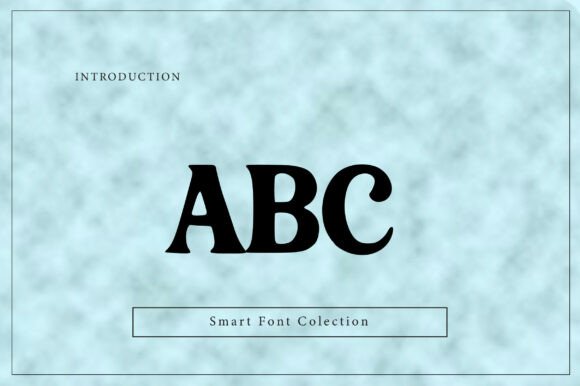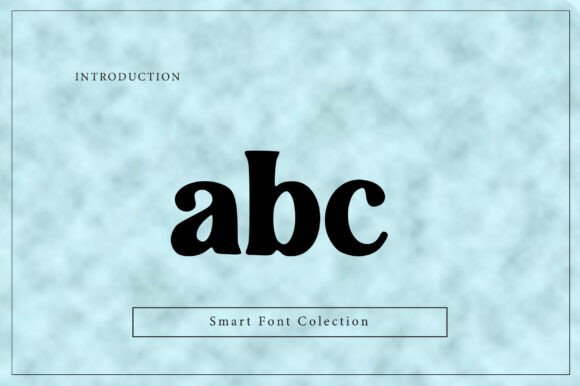
Step Back in Time with Bold Retro Font
I’ll never forget the design project that led me to discover the Bold Retro font. I was working on a branding campaign for a boutique coffee shop, and my client specifically requested a vintage vibe. I spent hours scouring font libraries, but nothing seemed quite right – until I stumbled upon Bold Retro. Its thick, confident strokes and subtle flared terminals instantly transported me to the golden era of design. I knew right then and there that I had found the perfect fit.
A Designer’s Dream: Bold Retro Font
The Bold Retro font is a typeface that perfectly captures the soulful essence of vintage aesthetics while maintaining a sharp, modern edge. It’s built for impact, making it remarkably versatile for a wide range of design projects. Whether you’re creating bold logotypes, nostalgic packaging, or high-contrast editorial layouts, Bold Retro injects a sense of nostalgia and reliability into your work.
Here’s what I love about Bold Retro:
- ✨ Instant vintage charm: The font’s classic design elements evoke a sense of nostalgia and timelessness.
- ✅ High-impact legibility: The thick strokes and confident letterforms make it perfect for headlines and titles.
- 💡 Versatility: Use it for logotypes, packaging, editorial layouts, or any project that needs a bold statement.
And, of course, no font is perfect. A few quirks to keep in mind:
- 🤔 Limited use for body text: Due to its bold nature, Bold Retro is best suited for headlines and titles rather than lengthy paragraphs.
- ⚠️ Glyph limitations: While the font has a range of OpenType features, some users may find the character set limited for very specific design needs.
The Story Behind Bold Retro Font
Legend has it that Bold Retro was inspired by the iconic signage of 1950s America. Its designer, a fan of classic cinema and mid-century advertising, sought to capture the essence of a bygone era in a modern typeface. The result is a font that’s equal parts nostalgic and bold.
| What makes Bold Retro font unique? | Its perfect blend of vintage charm and modern edge, making it ideal for designs that need a bold statement. |
| Can I use Bold Retro for body text? | While possible, Bold Retro is best suited for headlines and titles due to its bold nature. |
| Is Bold Retro suitable for digital use? | Absolutely! Bold Retro’s clear design makes it legible even at smaller sizes, making it perfect for digital projects. |
With Bold Retro font, you’ll be able to add a touch of nostalgia and sophistication to your designs. Whether you’re working on a branding campaign, packaging, or editorial layouts, this font is sure to make a statement.